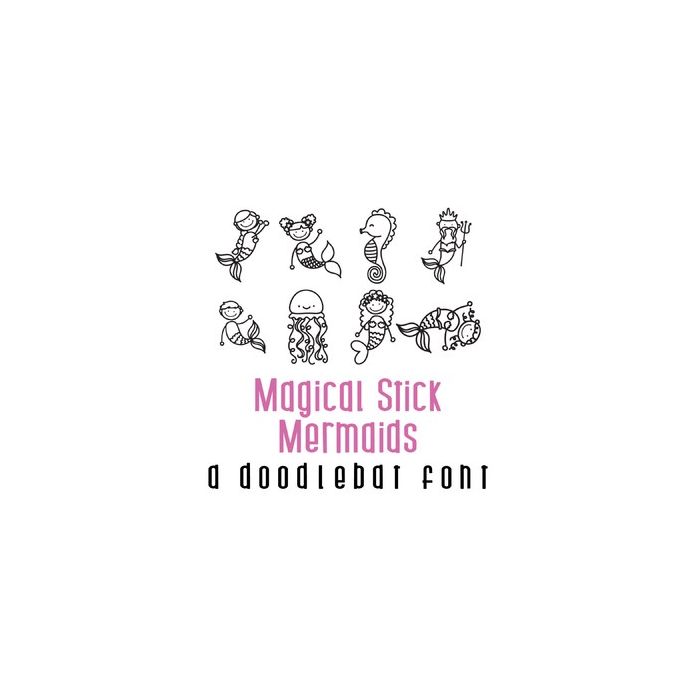
This fun doodlebat font features 26 adorable stick figure style mermaids and ocean friends. Perfect for cards, gifts, decor, crafts, scrap book pages, planner stickers and more!